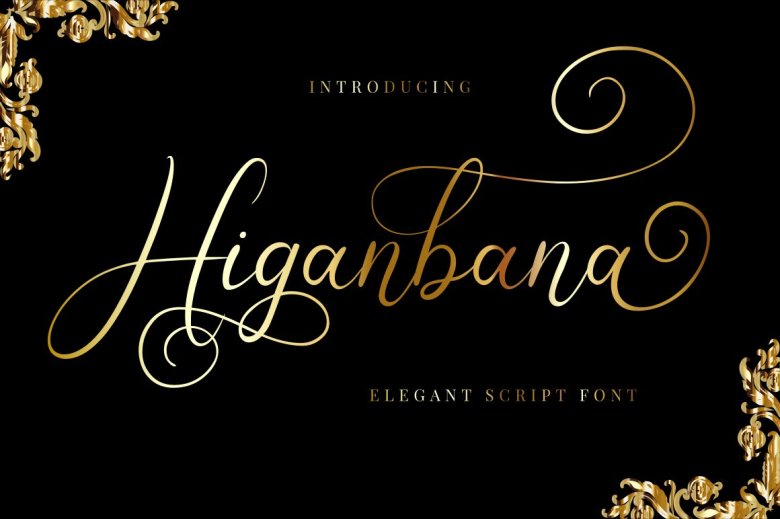
Higanbana is an elegant and stylish calligraphy script font, made from natural handwriting, and carefully designed to get maximum results and is perfect for pairing with serif and sans serif fonts. Higanbana is perfect for branding projects, logo, wedding designs, social media posts, advertisements, product packaging, product designs, label, photography, watermark, invitation, stationery and any projects that need handwriting taste.
Higanbana Calligraphy Script Font